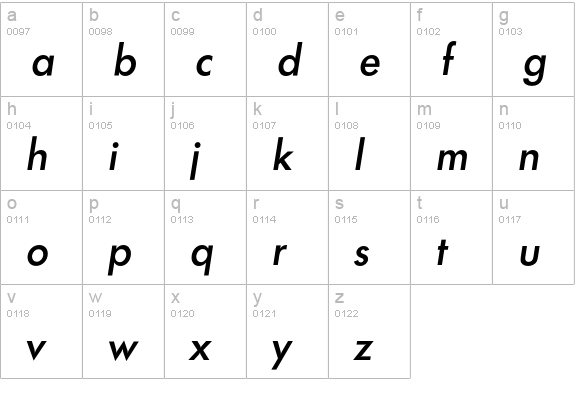
Limerick-MediumIta Font Details
Limerick-MediumIta font is a versatile and elegant typeface that exudes sophistication and style. With its sleek lines and balanced proportions, this font is perfect for a wide range of design projects, from branding to editorial layouts. The italicized medium weight of Limerick-MediumIta adds a touch of flair and modernity to any text. The best part? Limerick-MediumIta is available for free download at FontsMarket.com. This means you can elevate your designs without breaking the bank. Whether you're a seasoned designer or a novice looking to experiment with typography, Limerick-MediumIta is a great addition to your font collection. Download it today and add a touch of class to your projects!